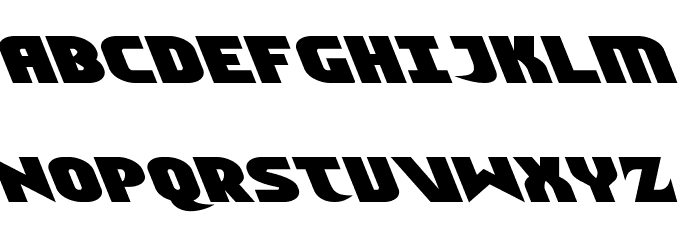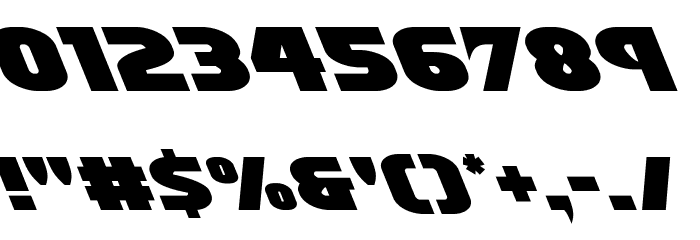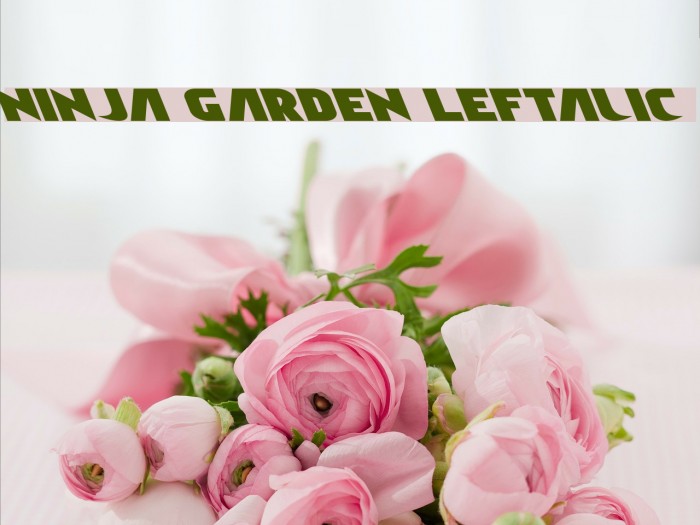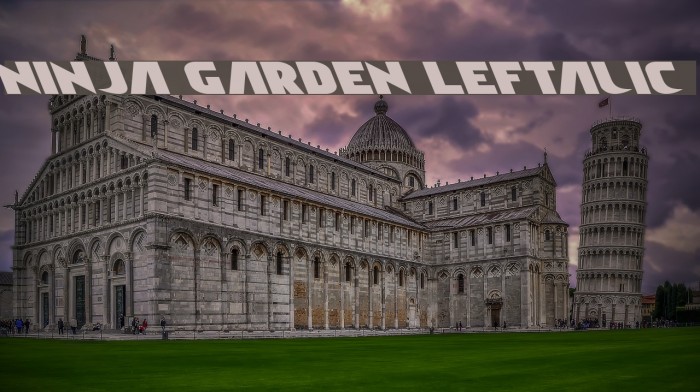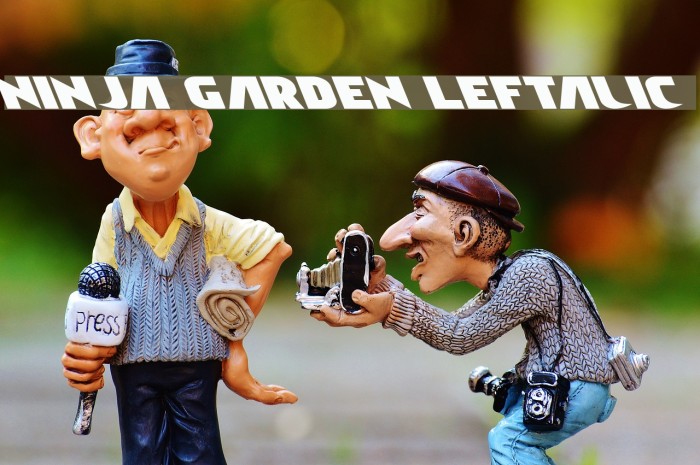
Ninja Garden Leftalic Font
This font features a bold and dynamic style with a distinct slant to the left, giving it a sense of motion and energy. The characters are wide and have a strong presence, making them suitable for attention-grabbing headlines or titles. The strokes are thick and consistent, providing a uniform appearance across all characters. The angular design of the letters adds a modern and edgy feel, while the spacing between characters is tight, enhancing the compact and impactful look. This font is ideal for projects that require a bold statement and a contemporary aesthetic.
A bold, left-slanted font with a dynamic and modern style.
- Proposed Projects: Ideal for sports branding, action movie posters, video game titles, and dynamic advertising campaigns.
- Width: Expanded
- Character Spacing: Tight